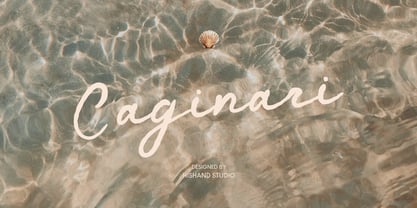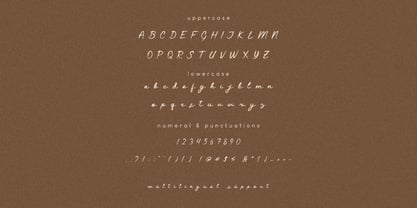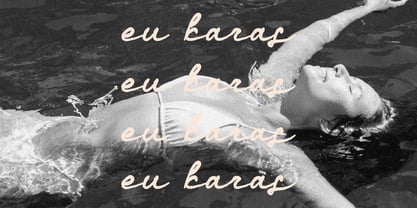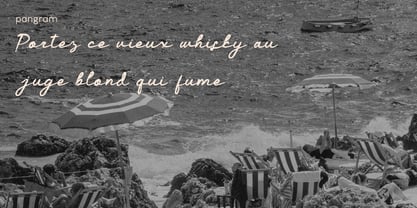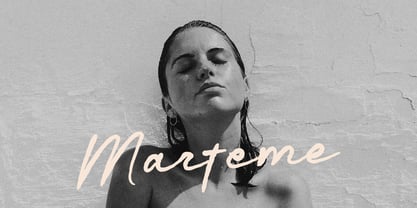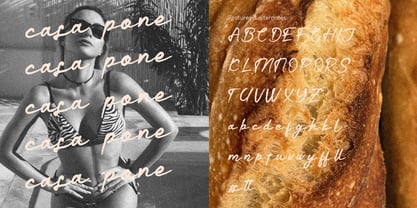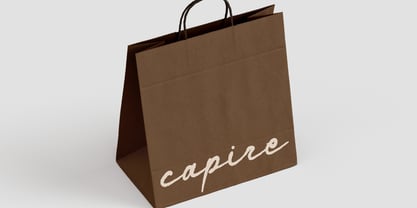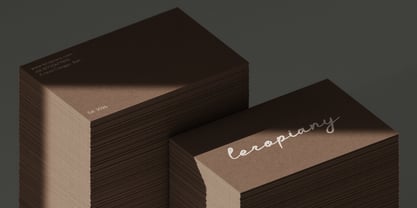
Caginari
by Hishand Studio
The Caginari Font Family was designed by Putu Dody Permana and published by Hishand Studio. Caginari contains 1 styles. More about this family
Caginari is a flowing script font that captures the ease and warmth of a slow coastal morning. Its long, connected strokes move with a natural rhythm, swinging low into wide loops before rising again, giving every word a relaxed, handwritten feel. The letterforms are casual but confident, striking a balance between elegance and approachability that makes them equally at home on a wedding invitation or a beachside brand.
Caginari works beautifully for logos, packaging, social media graphics, and editorial headlines, especially in projects with a coastal, organic, or lifestyle theme. Its generous curves and consistent slant give it a signature look that stays legible even at larger tracking or paired with simple sans serif body text.
From boutique hotels to skincare labels to personal branding projects, Caginari brings a soft, breezy character that feels both personal and polished. Simple to use, easy to love. Complete with :
- uppercase
- lowercase
- ligatures
- alternates
- multilingual support